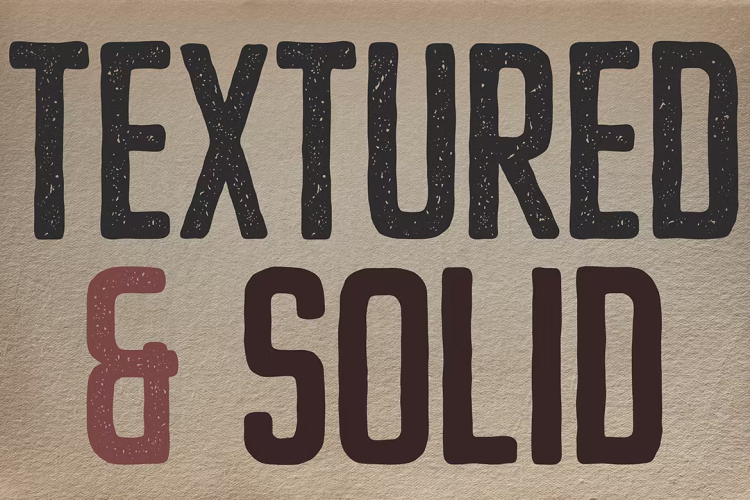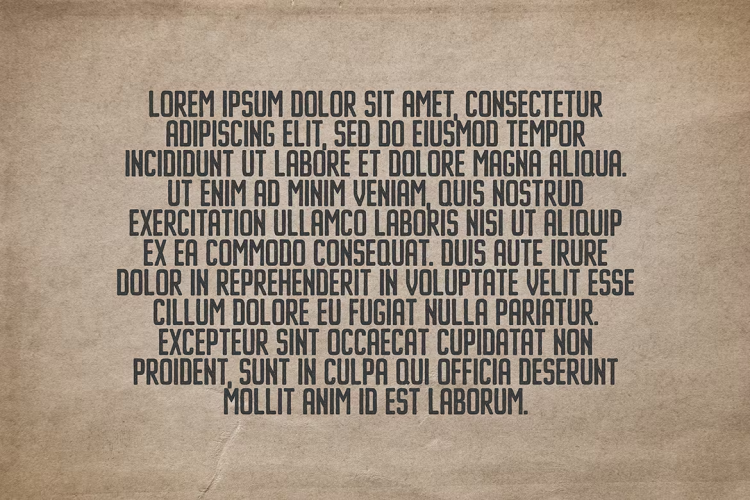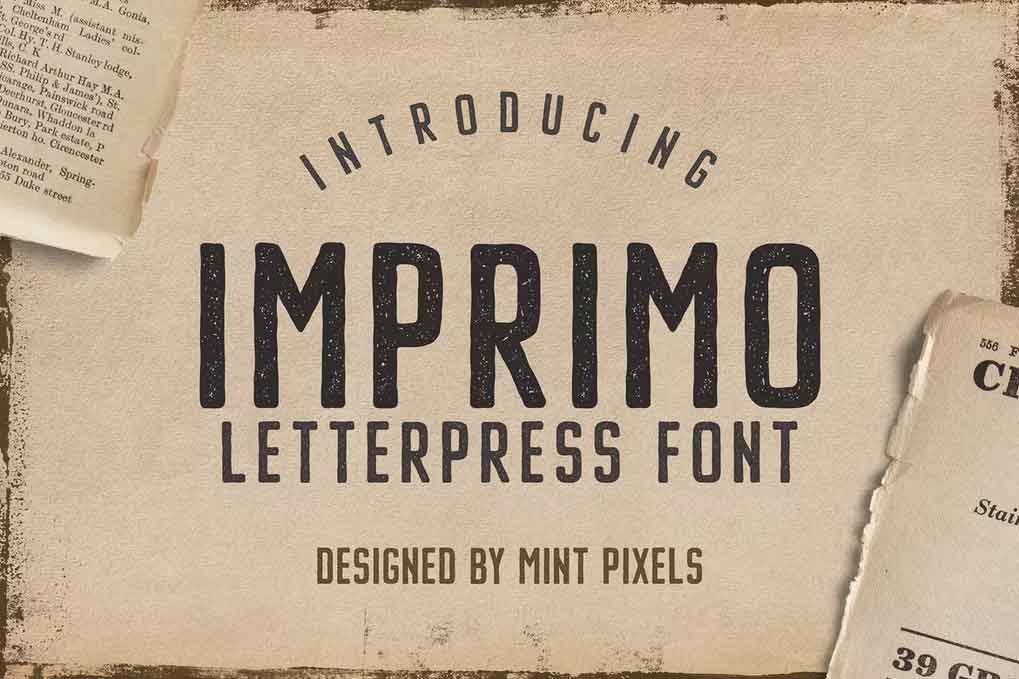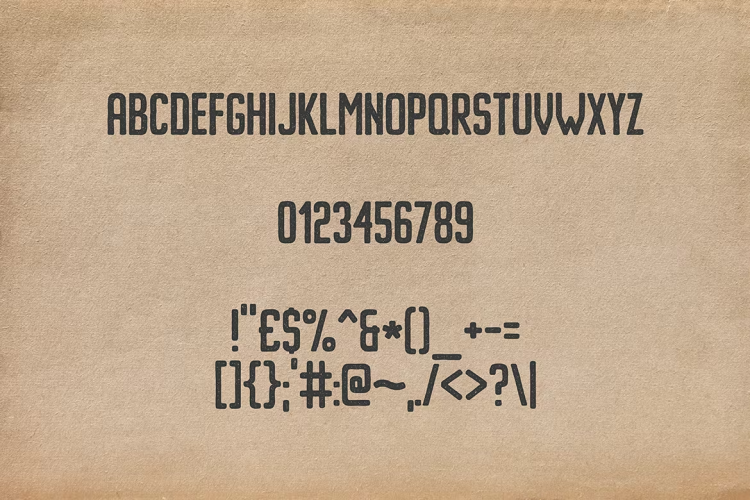
Imprimo Letterpress Font
Imprimo is an uppercase sans-serif letterpress type font. It is a vintage looking decorative bold distressed display great mainly for titling.
Imprimo font was designed by Mint Pixels and comes in two styles – textured and solid, both in OTF file format.
Where Imprimo Letterpress Font works best
Imprimo Letterpress Font stays legible at small sizes, which makes it a strong choice for navigation, buttons and dashboards in web design and app interfaces.
Clean sans serifs like Imprimo Letterpress Font are the default language of SaaS, fintech and product branding.
What is Imprimo Letterpress Font good for?